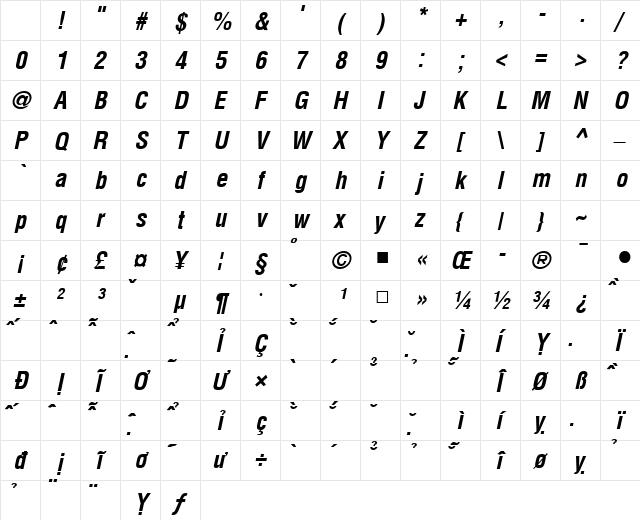
Complete VNI-Helve-Condense Bold-Italic glyph index. Displaying only characters natively supported by VNI-Helve-Condense Bold-Italic font.
VNI-Helve-Condense is a composed and adaptable typeface that performs quietly and consistently across a wide range of design contexts. The slanted form adds forward momentum and visual energy. Its bold stroke weight gives it real presence on the page. Its narrow stance lets it pack a punch even in space-constrained designs.